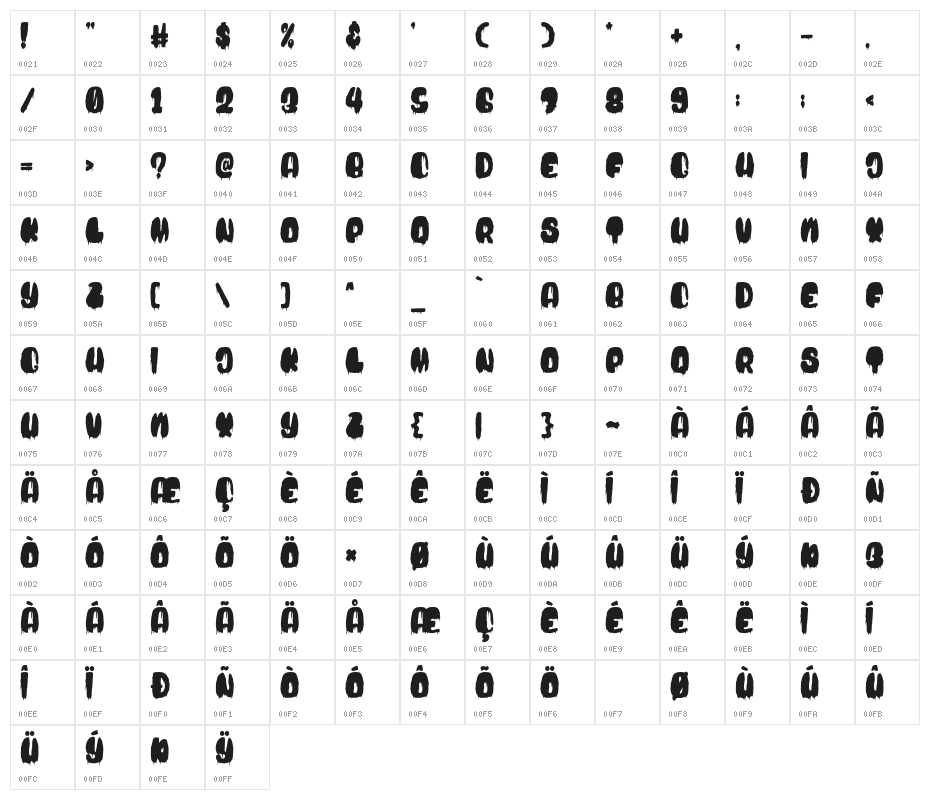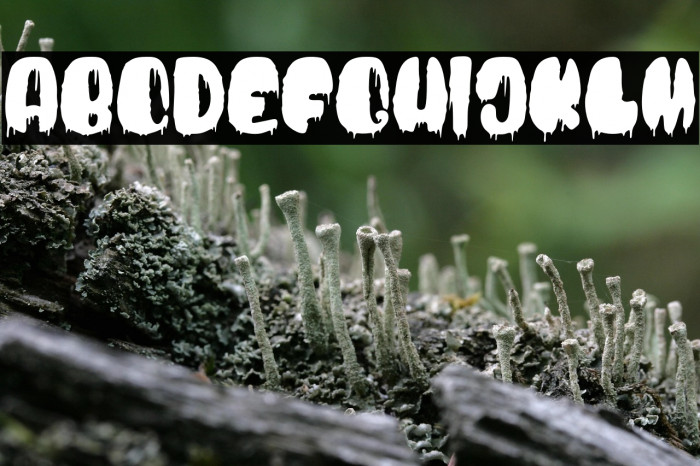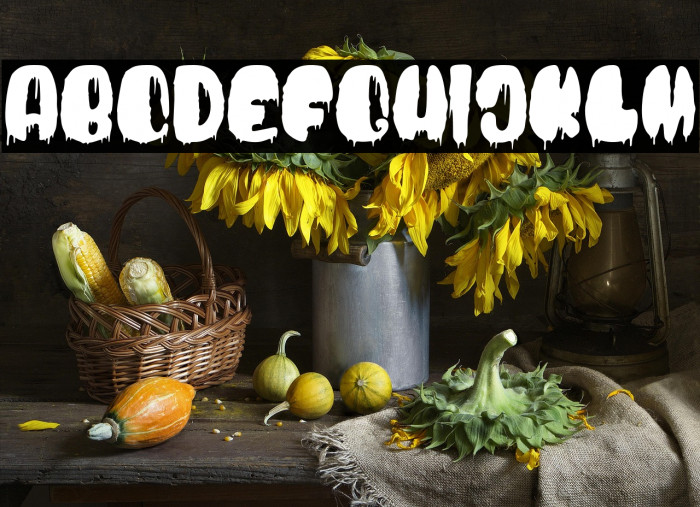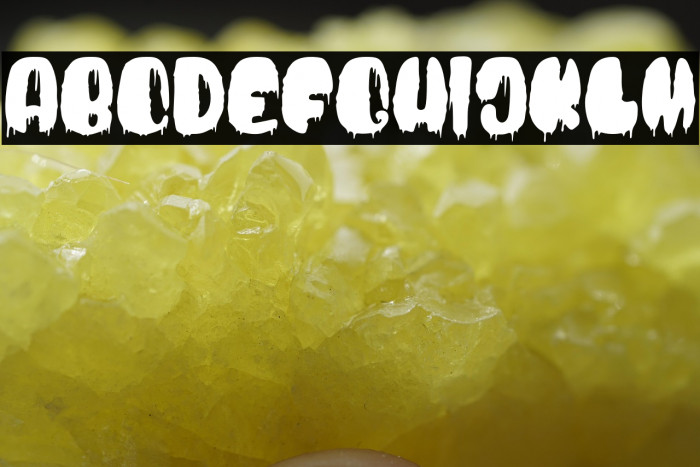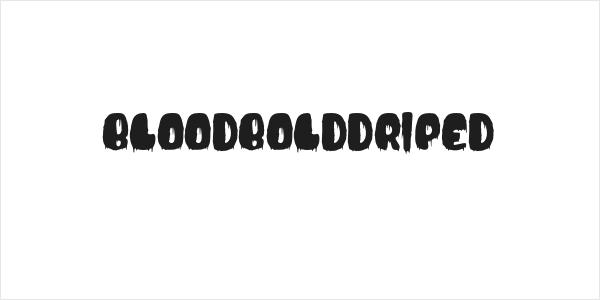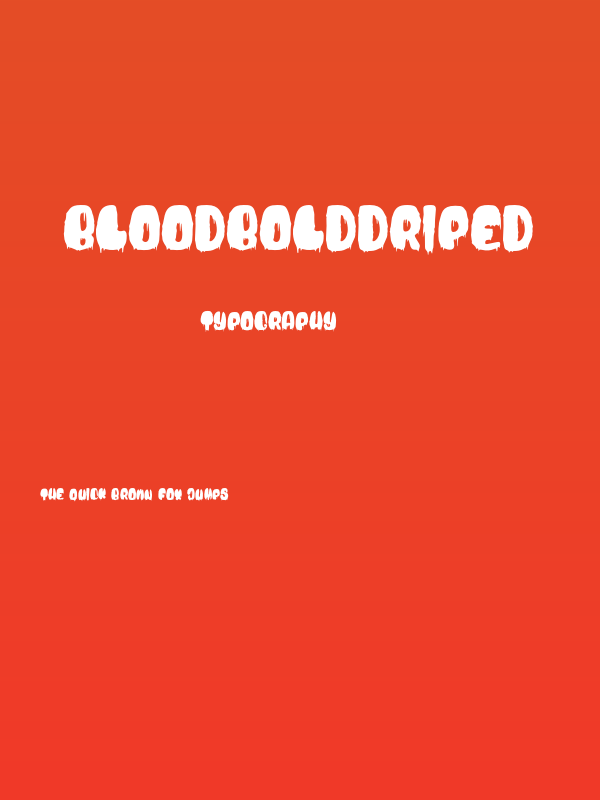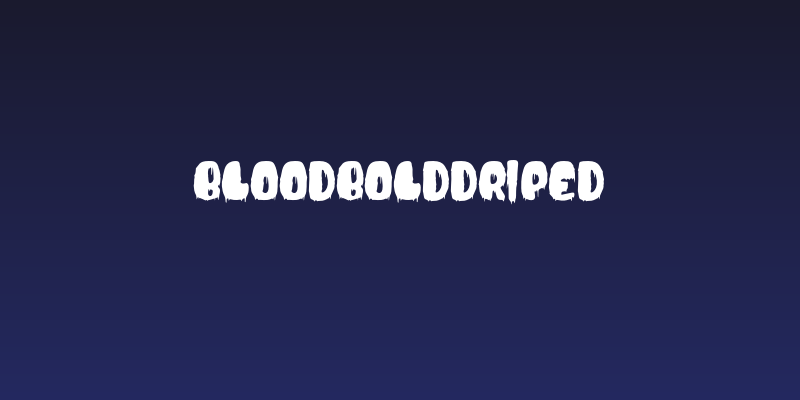
BloodBoldDriped Font
BloodBoldDriped Description
This font features a bold and dramatic style with a dripping effect that mimics the appearance of liquid or blood. The characters are thick and rounded, with each letter and number appearing as if it is melting or dripping downwards. This creates a visually striking and somewhat eerie aesthetic, making it ideal for themes related to horror, Halloween, or anything that requires a spooky or intense visual impact. The font maintains a consistent thickness throughout, with the dripping elements adding a unique texture and movement to the otherwise solid forms.
| Proposed Projects | Ideal for Halloween-themed designs, horror movie posters, haunted house flyers, or any project requiring a chilling and dramatic typeface. |